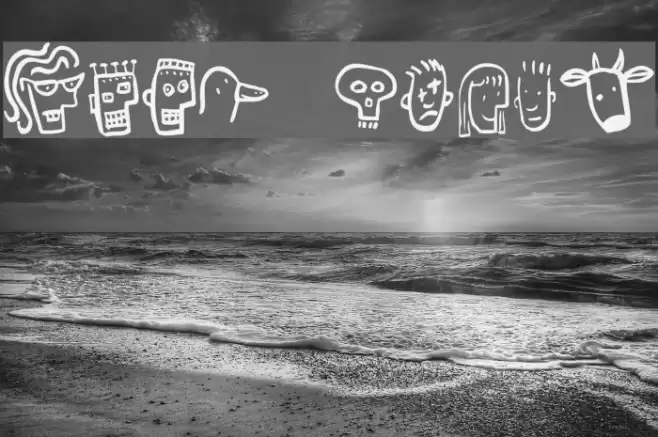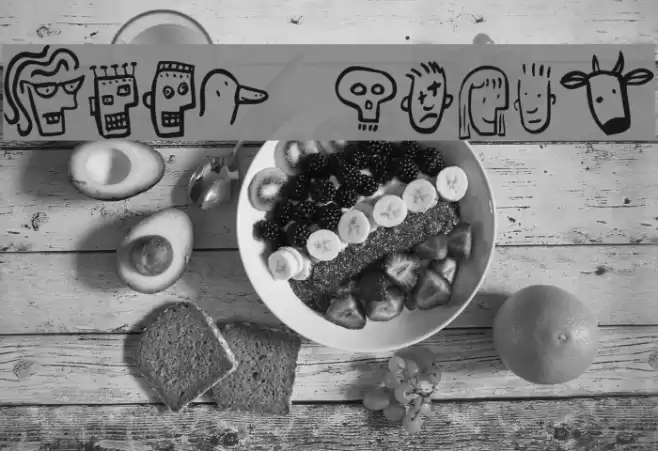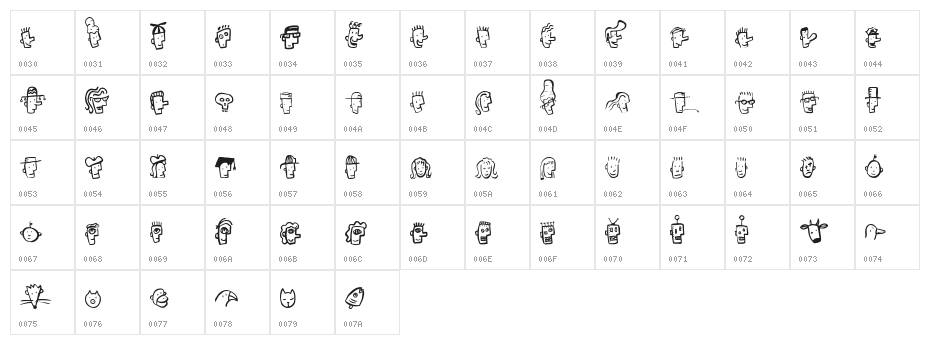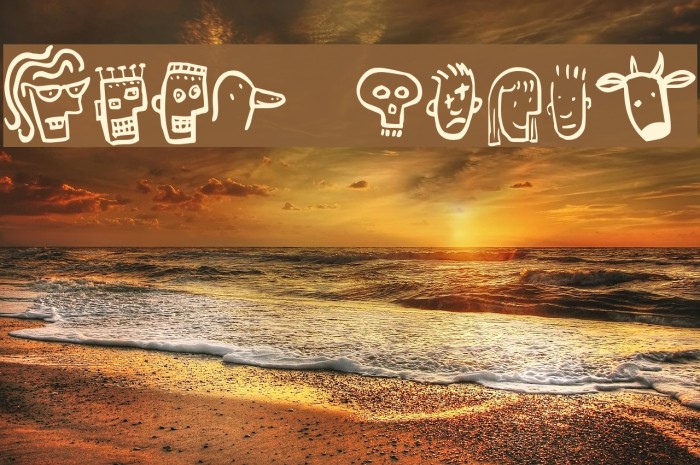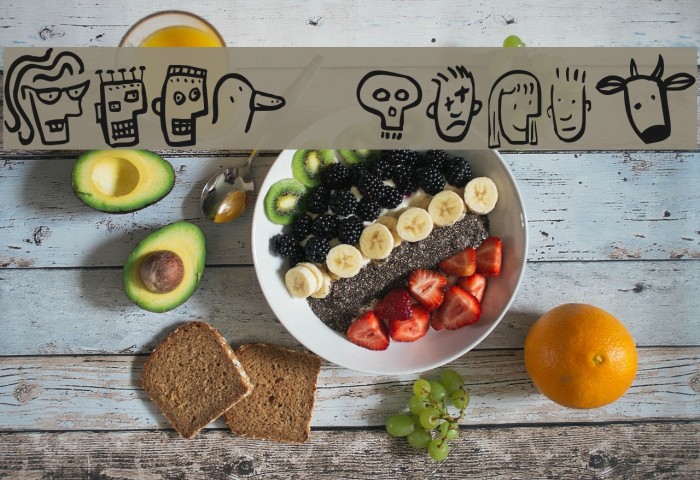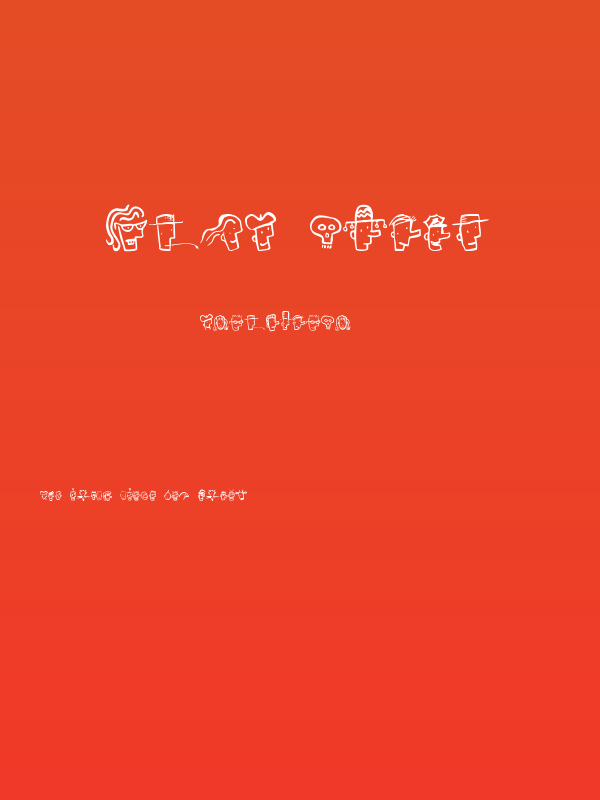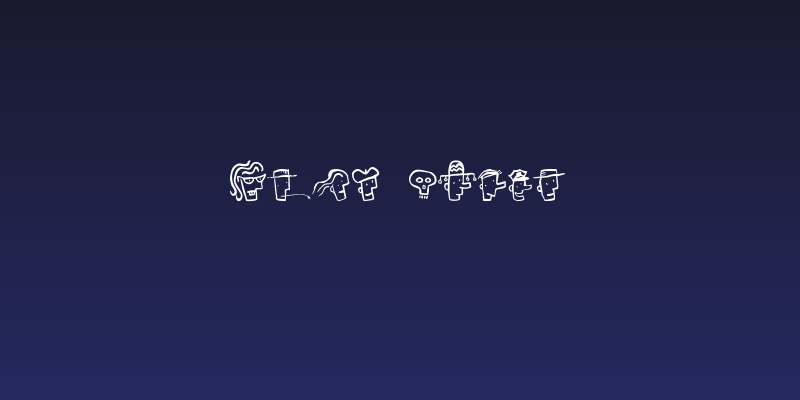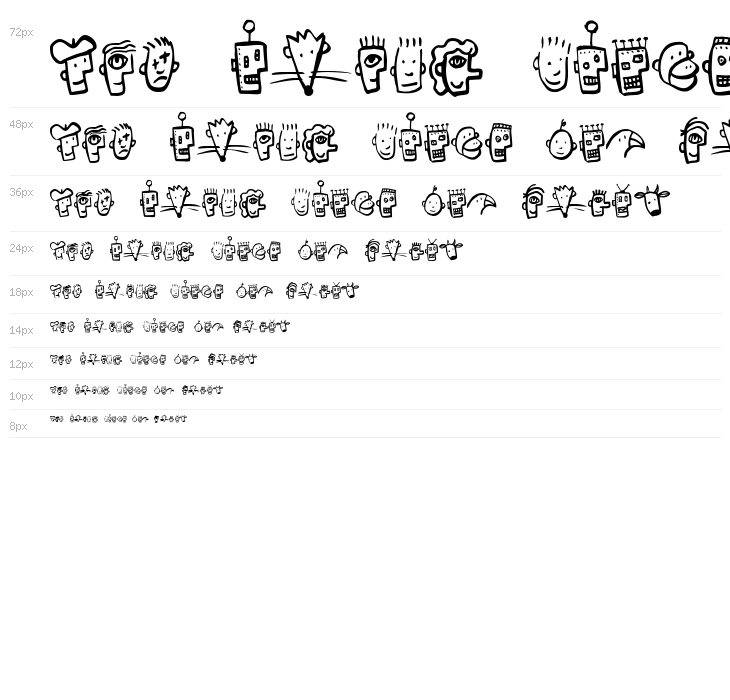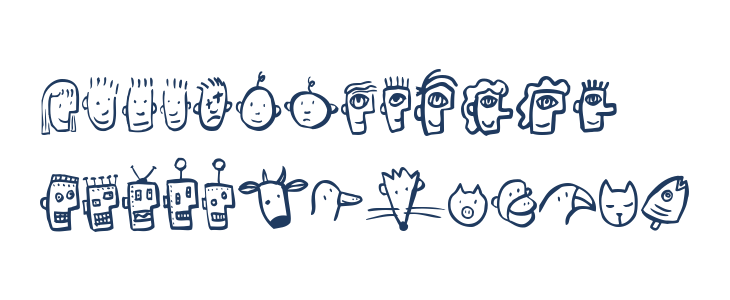
Font Heads Font
Font Heads Description
A playful, hand-drawn decorative font where each character is represented by a unique cartoonish head or face, featuring a variety of whimsical expressions and styles. The lines are bold and irregular, giving a lively and informal appearance.
Cartoonish, hand-drawn font made of expressive faces from Uncategorized fonts.
- Proposed Projects: Children’s books, comic titles, party invitations, posters, playful branding, creative art projects.
- Overall Style: Playful, Whimsical, Decorative
- Use Case: Headlines, Posters, Logos, Invitations